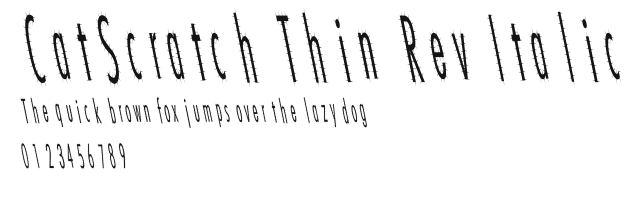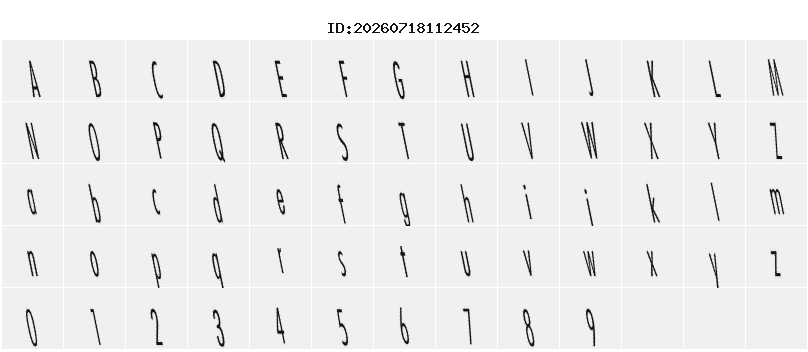
CatScratch Thin Rev Italic Preview
• Font Name: CatScratch Thin Rev Italic
• Full Font Name: CatScratch Thin Rev Italic
• PostScript Name: CatScratch Thin Reverse Italic
About CatScratch Thin Rev Italic.ttf
CatScratch Thin Rev Italic.ttf is a modern, elegant sans-serif font designed for ultimate readability and visual harmony. Perfect for branding, headlines, web design, and print materials.